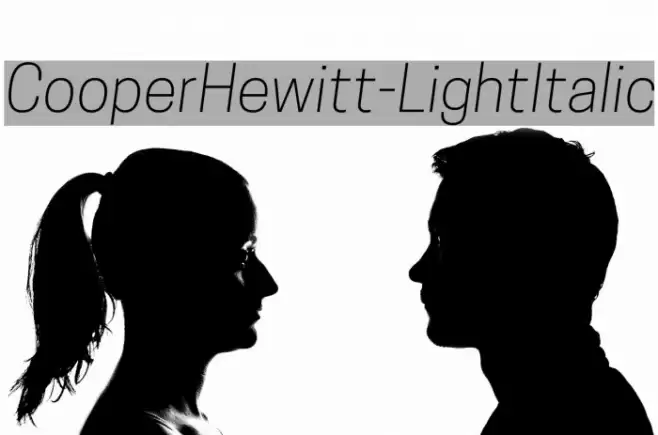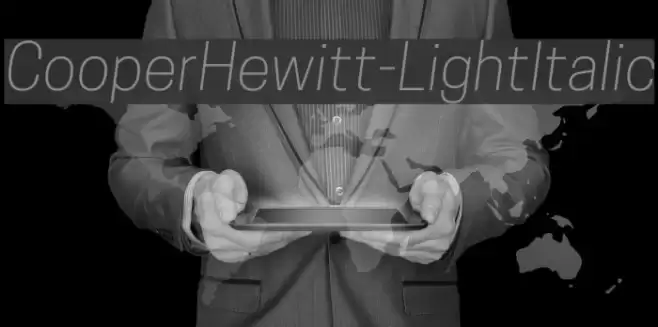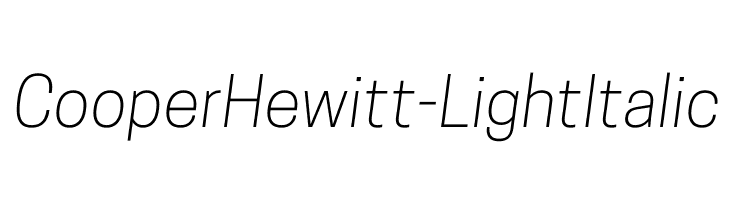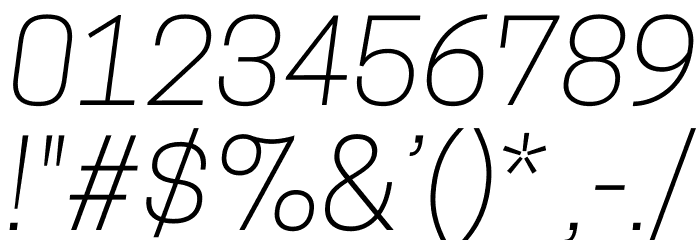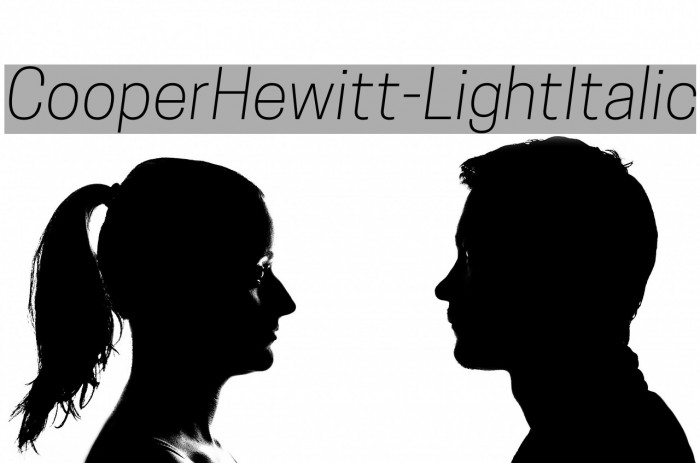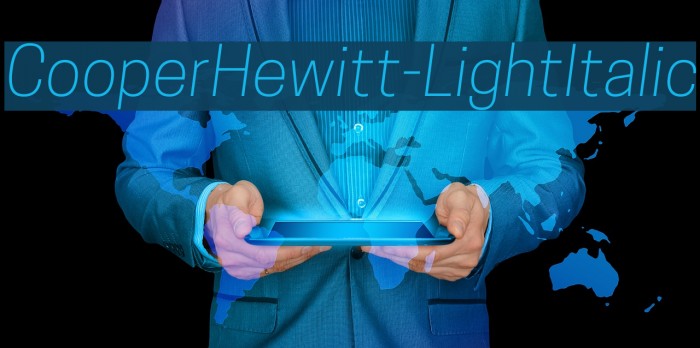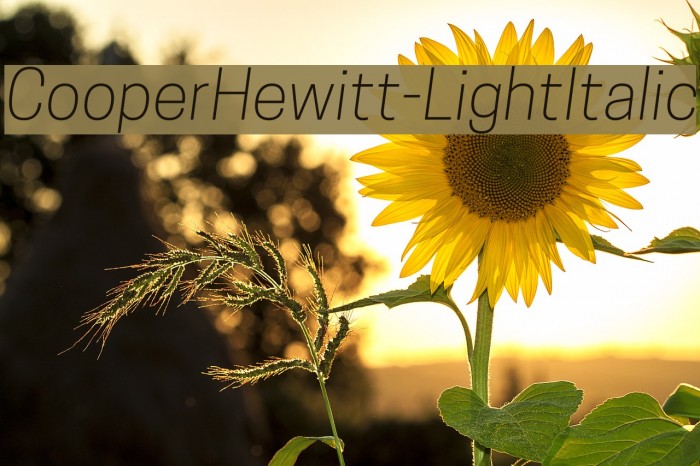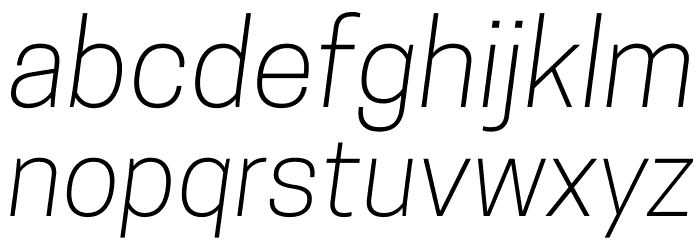
CooperHewitt-LightItalic Font
CooperHewitt-LightItalic Description
This font exhibits a sleek and modern aesthetic with its light and italicized form. The characters are elegantly elongated, providing a sense of movement and fluidity. The sans-serif design ensures a clean and uncluttered appearance, making it highly legible. The uniform stroke width contributes to its minimalist style, while the slight slant adds a dynamic touch. This font is versatile, suitable for both digital and print media, and can enhance the visual appeal of any project with its contemporary and sophisticated look.
A sleek, modern sans-serif font with a light, italicized style from Sans Serif fonts.